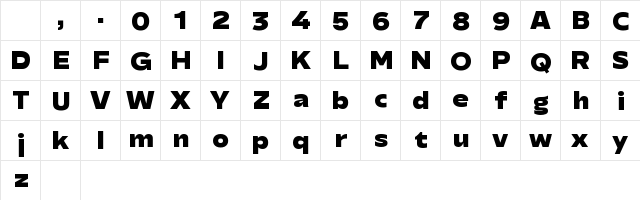
Performa Ex Black is a composed and adaptable typeface that performs quietly and consistently across a wide range of design contexts.
Pro Tip: Use Performa Ex Black in both headline and body roles to test its range before committing to a single application.